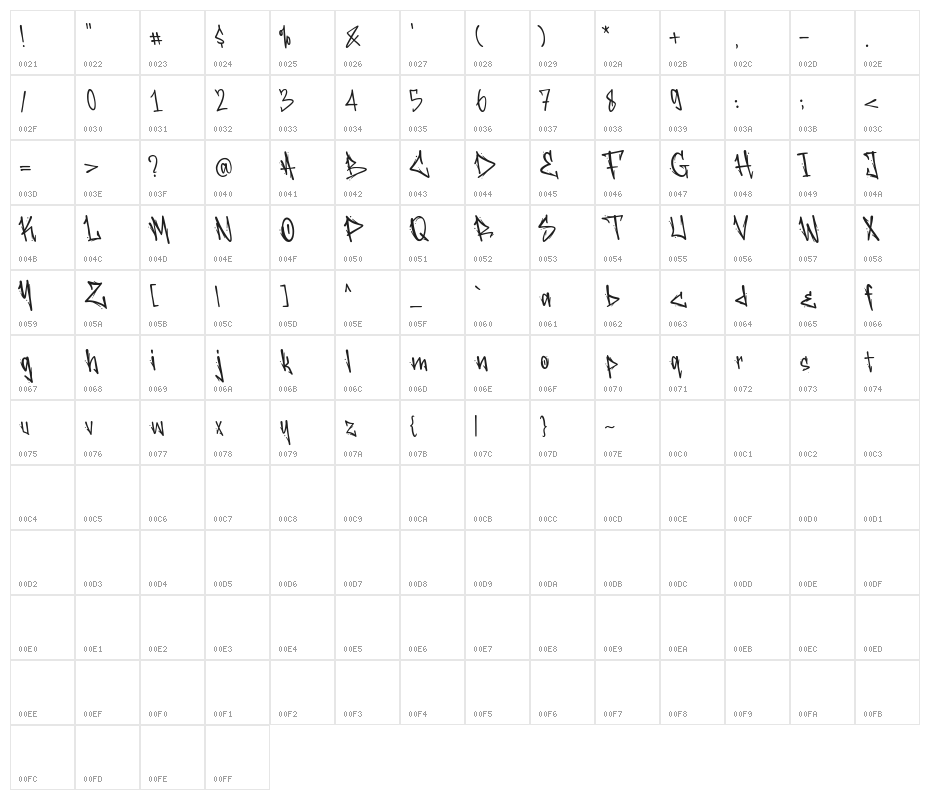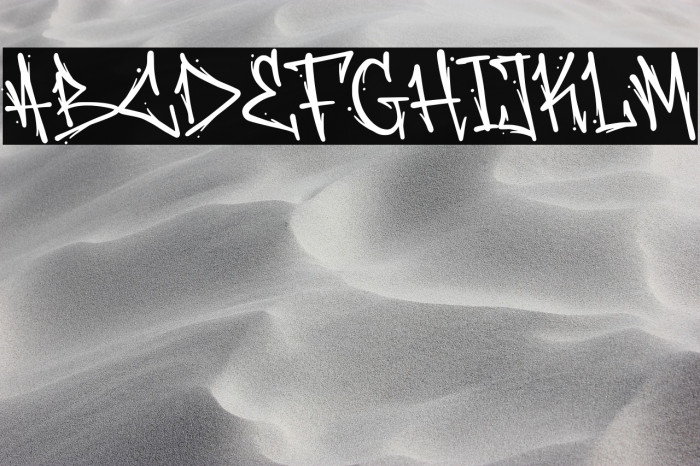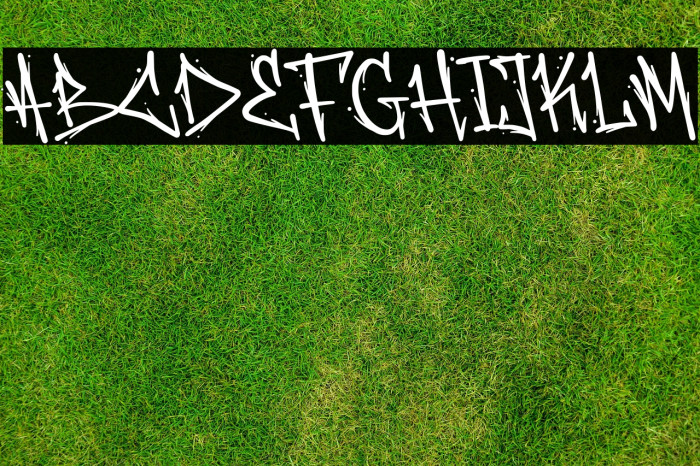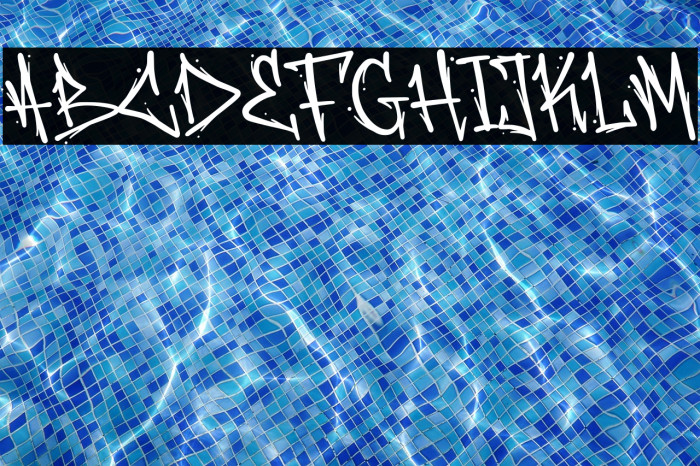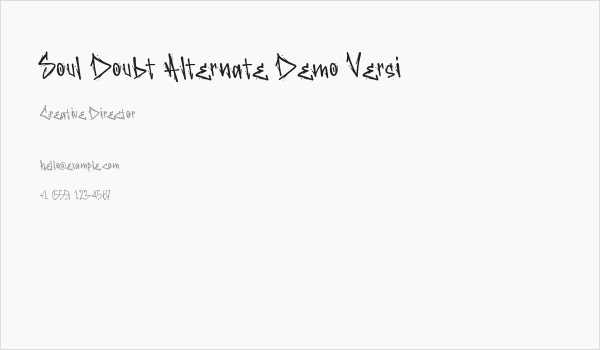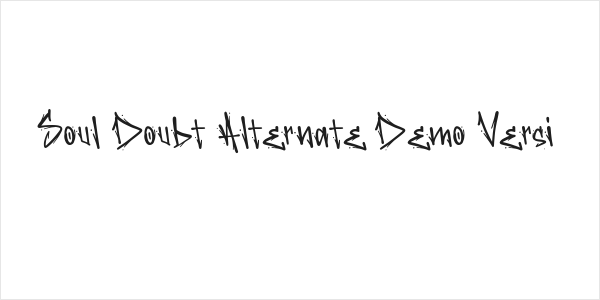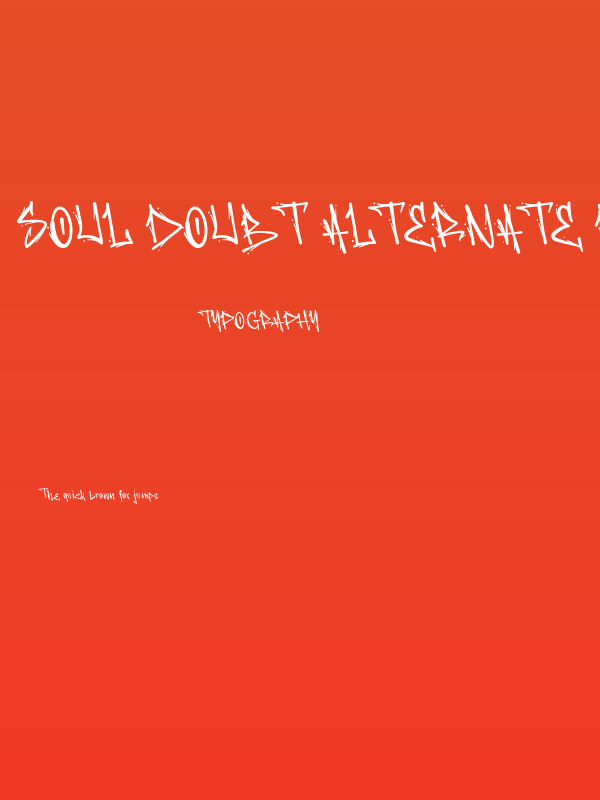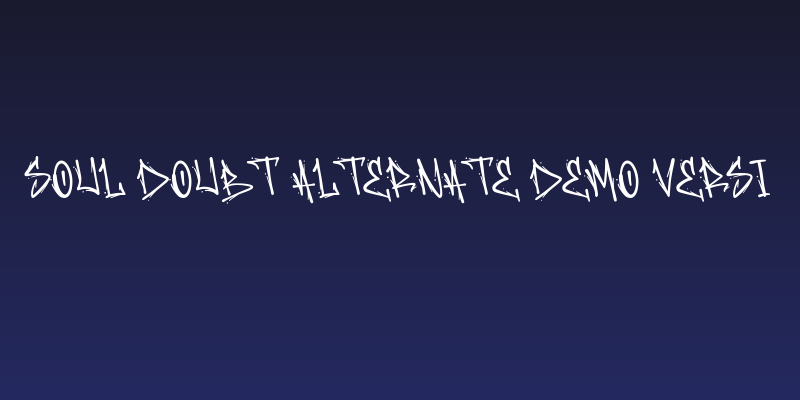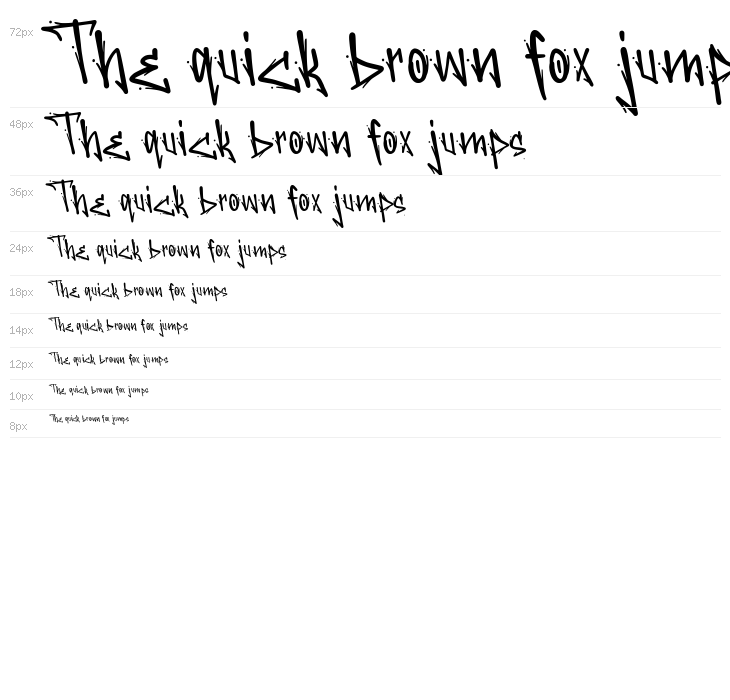
Soul Doubt Alternate Demo Versi Font
Soul Doubt Alternate Demo Versi Description
This font exhibits a dynamic and edgy style, characterized by its sharp, angular lines and irregular strokes. The uppercase letters are bold and assertive, with a graffiti-like appearance that suggests movement and energy. Lowercase letters maintain this energetic style, though they are slightly more compact. The numbers and special characters follow the same design principles, ensuring consistency throughout. This font's unique style makes it stand out, with a rebellious and urban feel that is both modern and expressive. The overall design is perfect for projects that require a bold statement or a touch of street art flair.
| Overall Style | Modern, Urban, Edgy |
| Proposed Projects | Ideal for street art designs, music album covers, edgy branding, and event posters. |